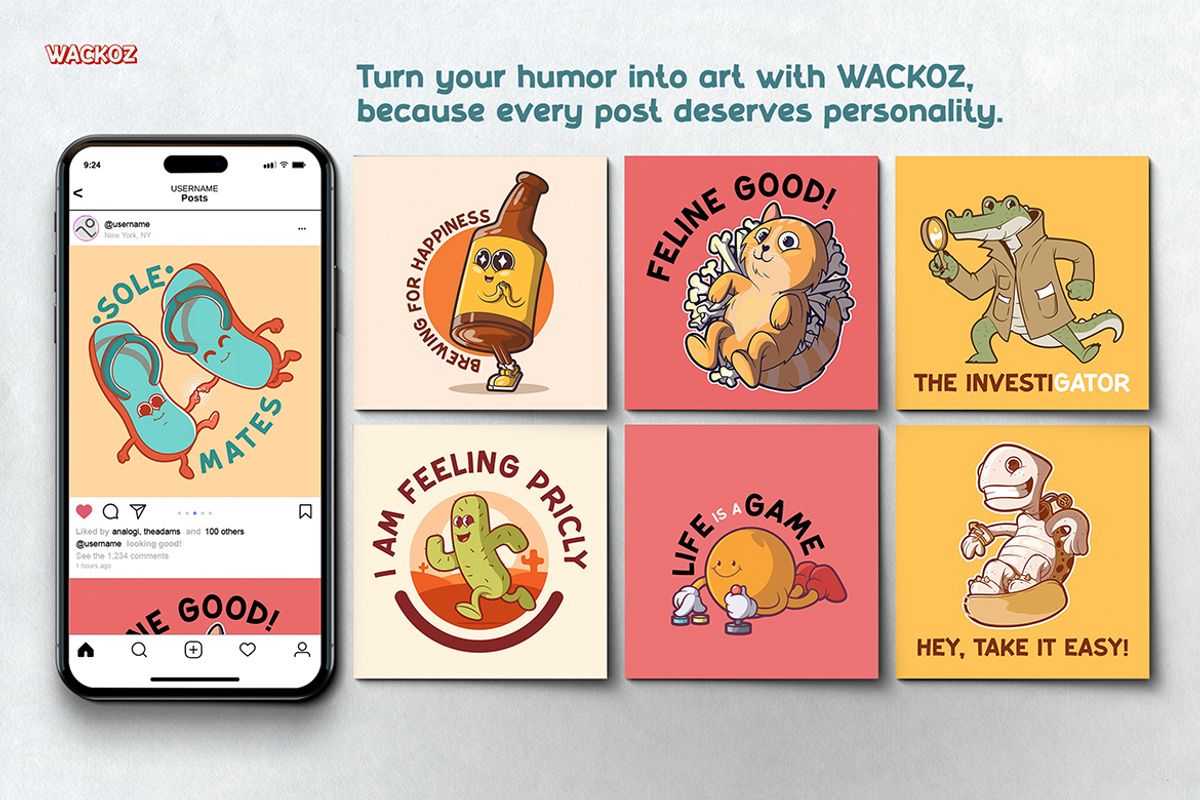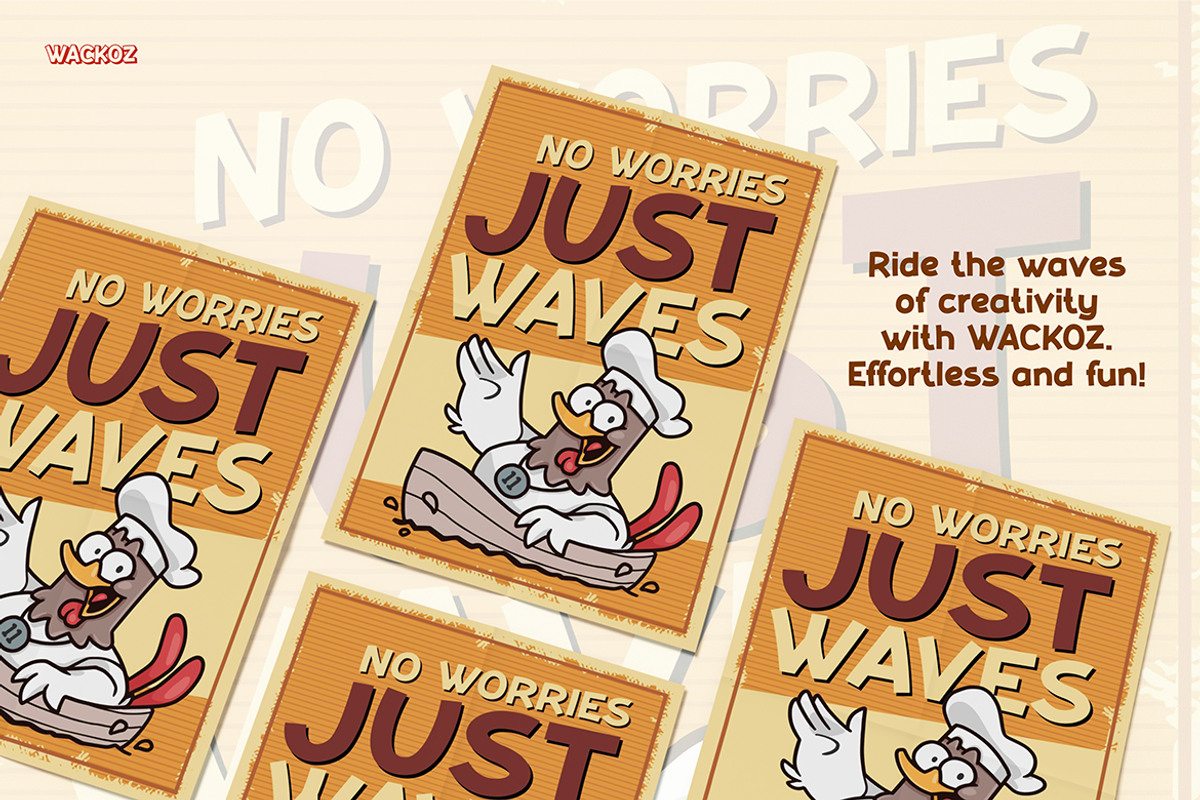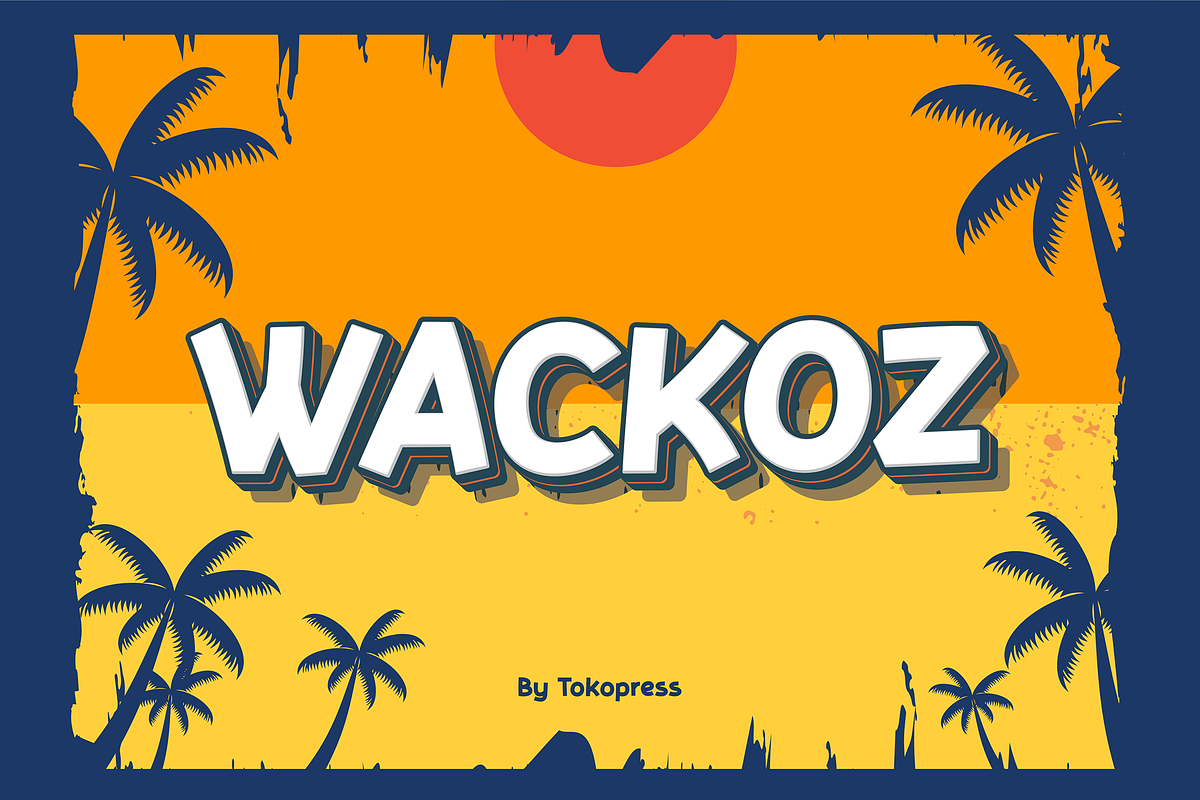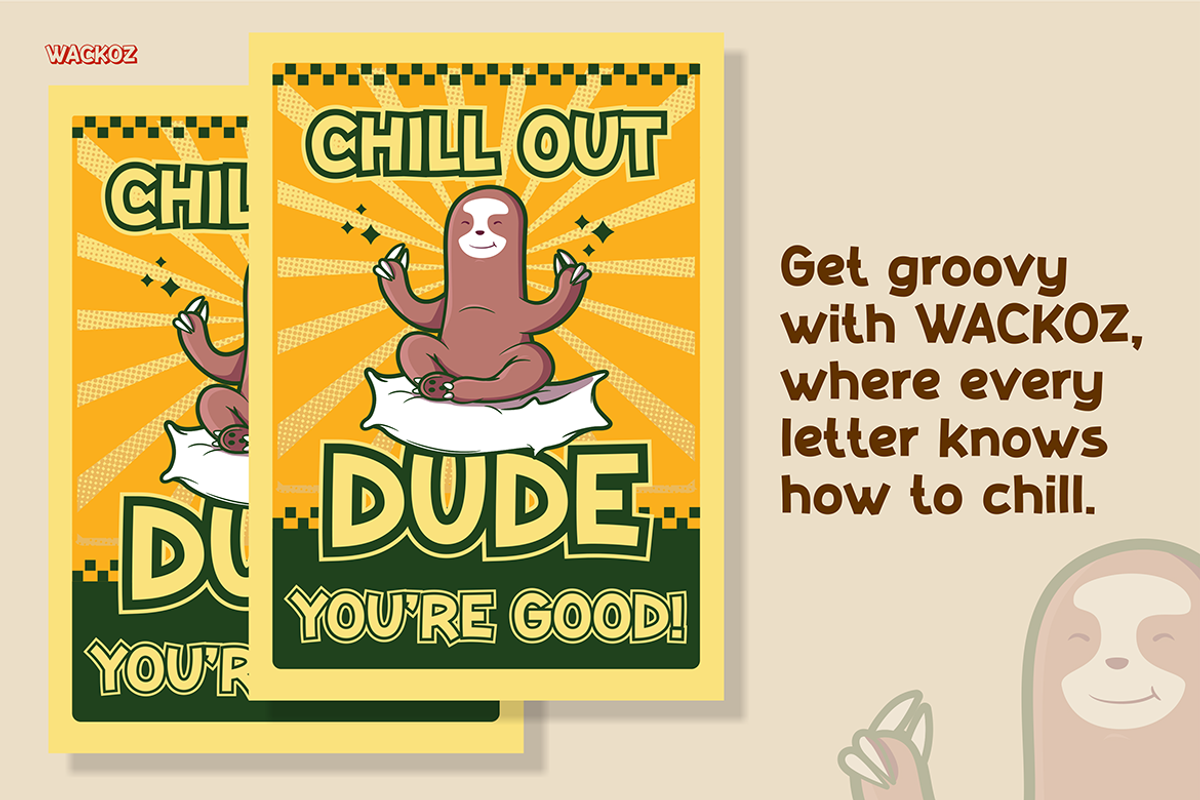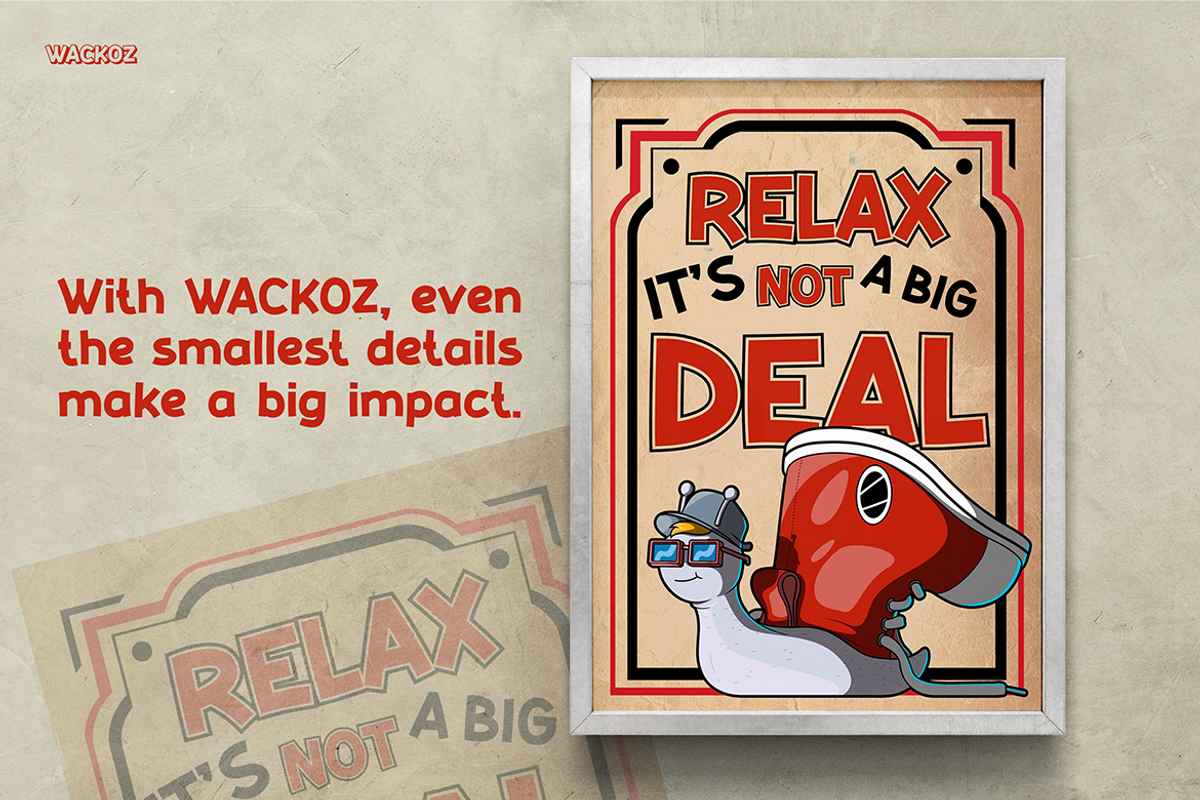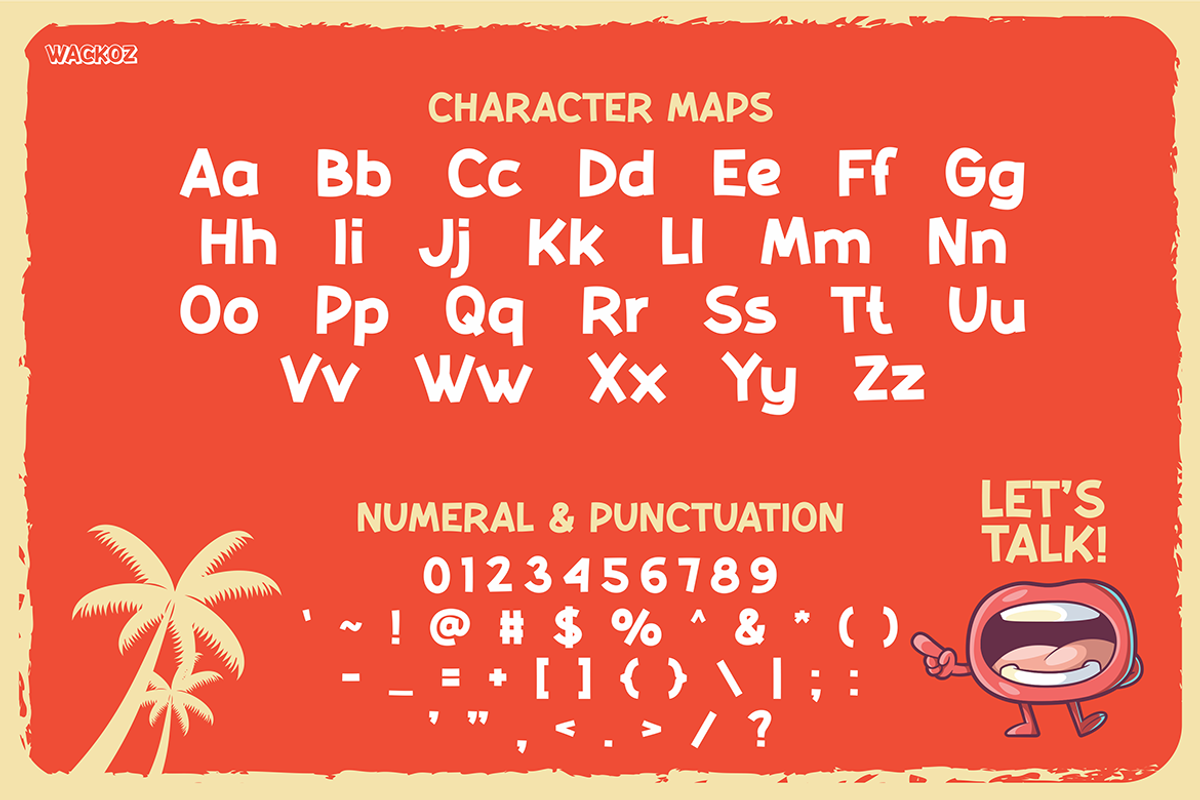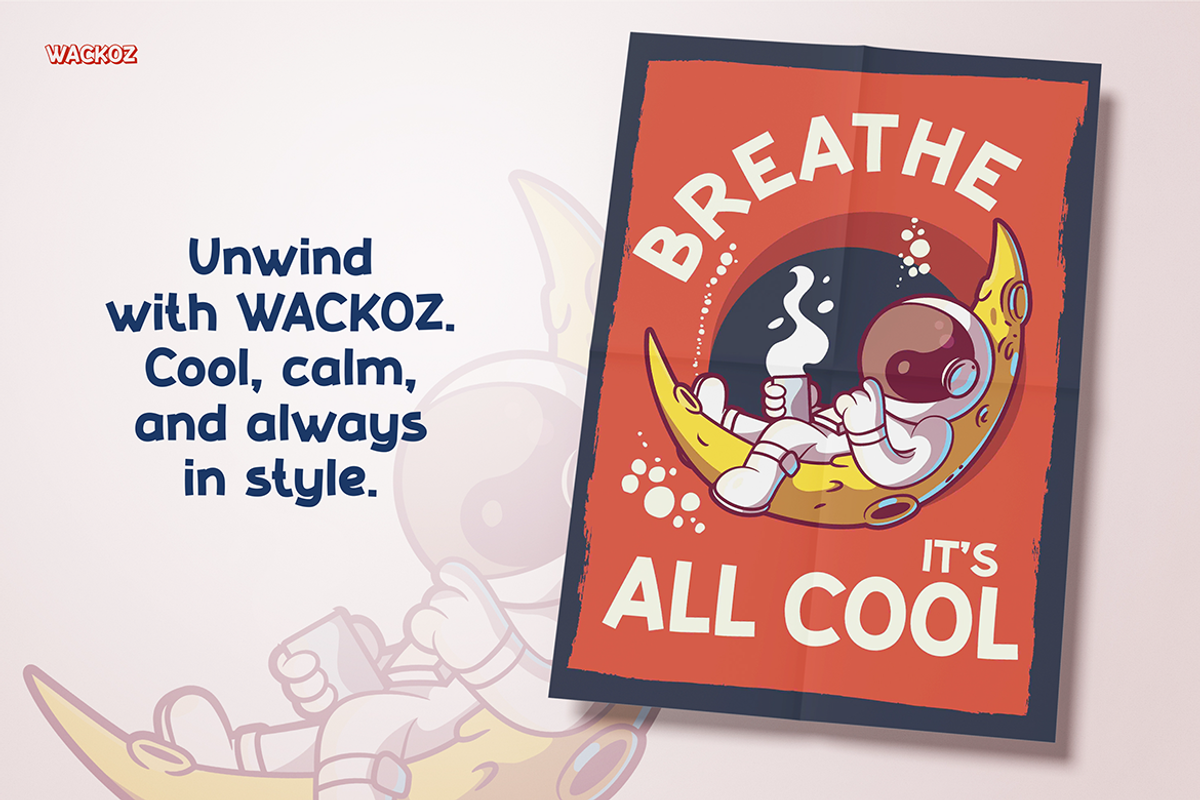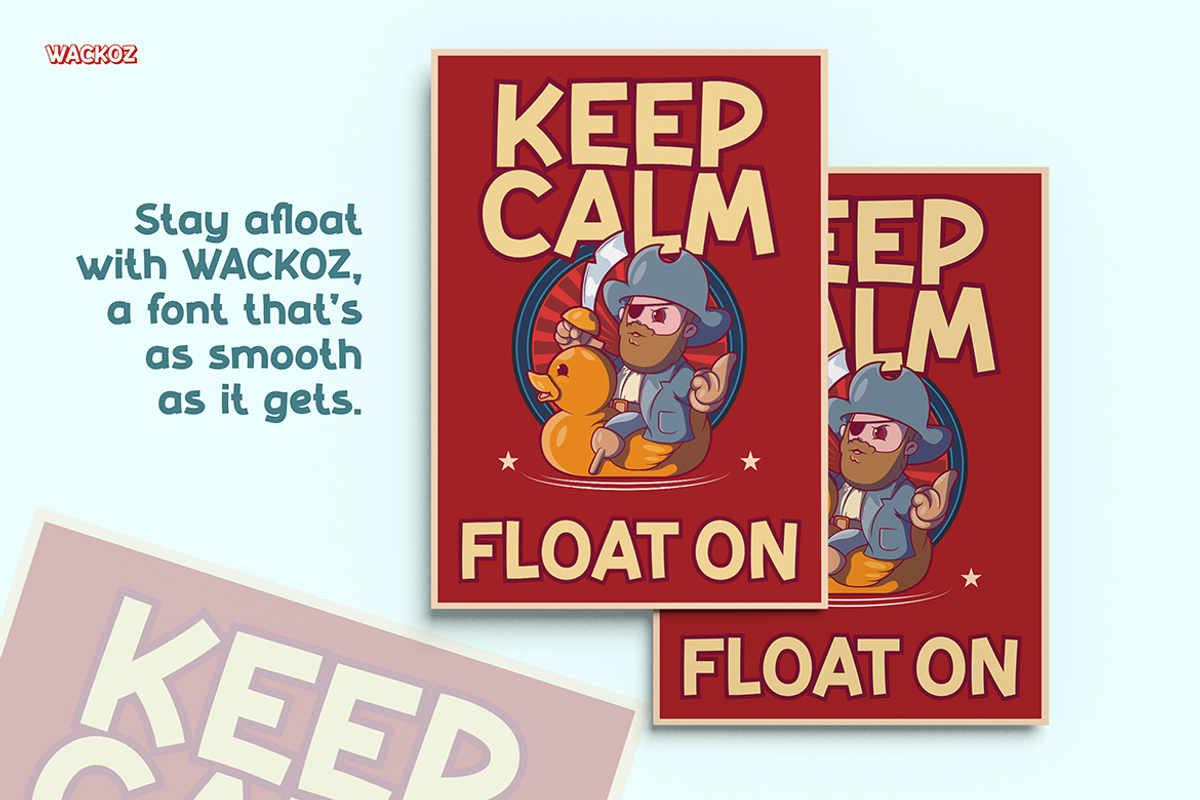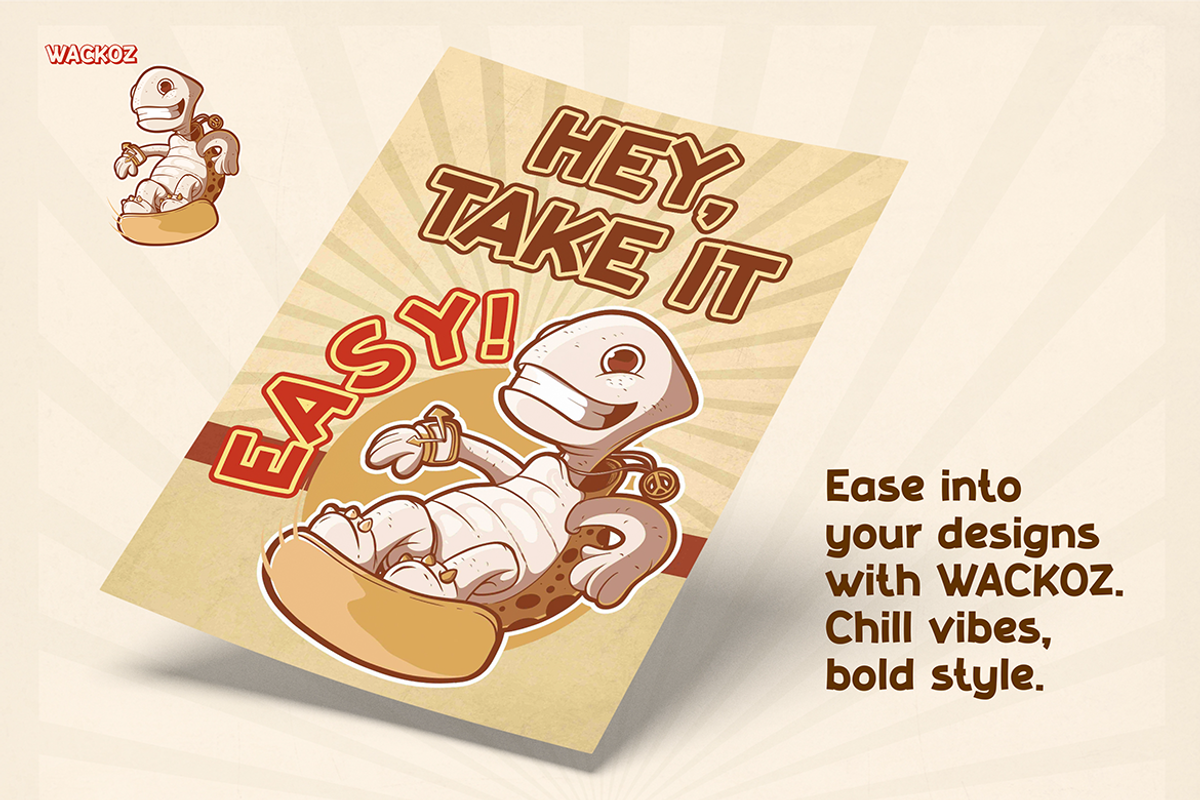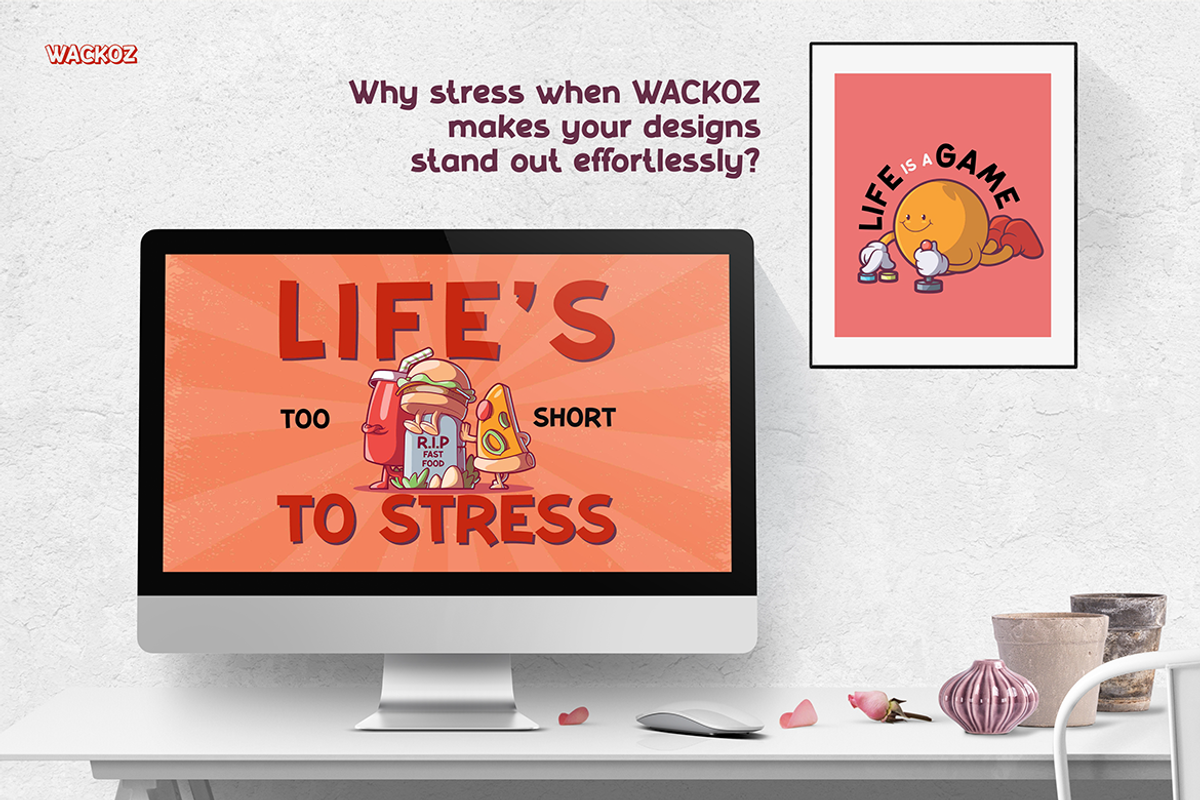
WACKOZ
Wackoz - A Playful Cartoon Font for All Ages
Wackoz is a lively cartoon-themed font designed to capture the fun and whimsical nature of cartoons.
Its playful and dynamic style appeals not only to children but also brings a nostalgic smile to adults. Perfect for kids’ projects such as storybooks, toys, and children’s events, Wackoz also adds a cheerful, playful touch to branding.
Bring your designs to life with this fun and vibrant font that makes everything feel colorful and exciting!